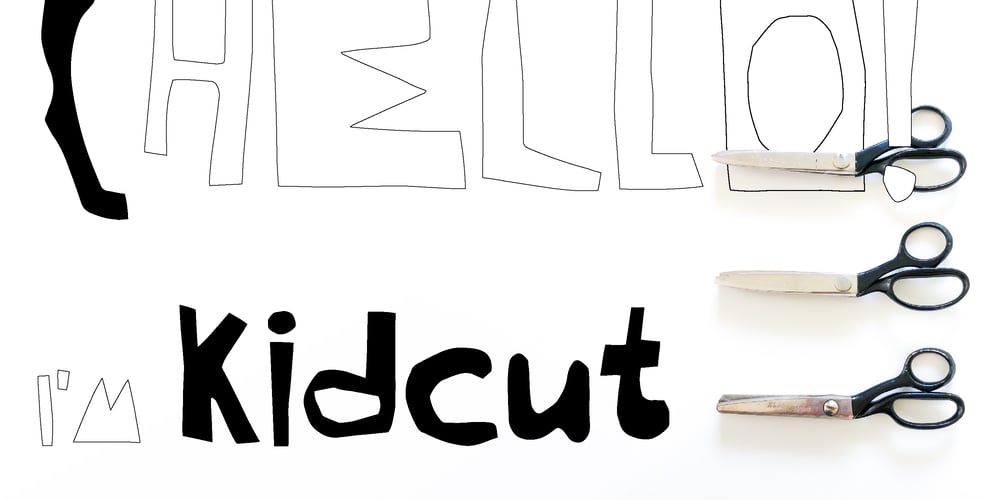
Kidcut Font Family was designed by Malgorzata Bartosik and published by Malgorzata Bartosik. Kidcut contains 1 styles and family package options. Kidcut is a typeface created by cutting glyphs out of paper with scissors. The shapes are irregular, giving the impression of being cut out by a child. The typeface contains upper and lower case letters of the Latin alphabet (basic, Eastern, Western and South Western Europe, Vientamese and Pinyin) and three contextual alternates from each glyph, which is very important when there are three identical letters in one word – then we have the impression of handmade, not repetitive.